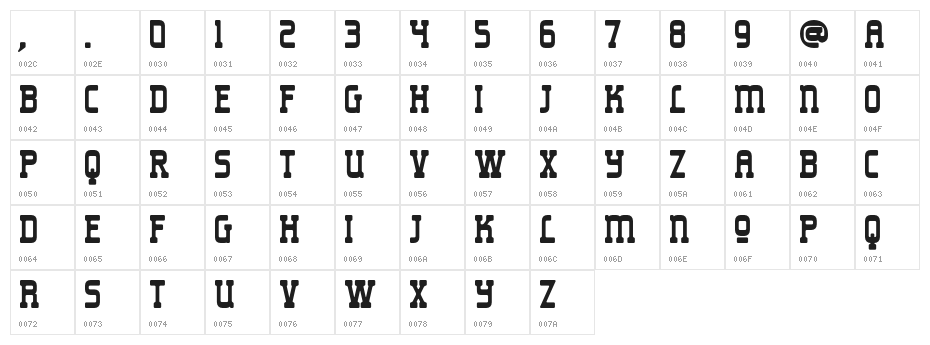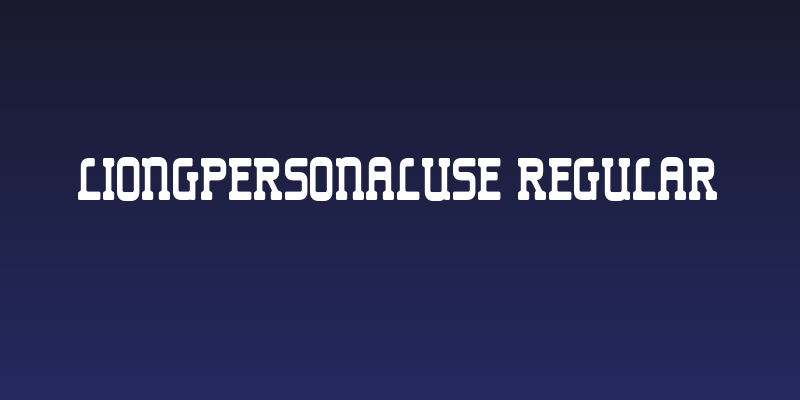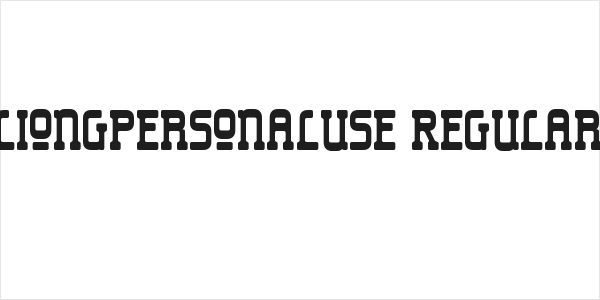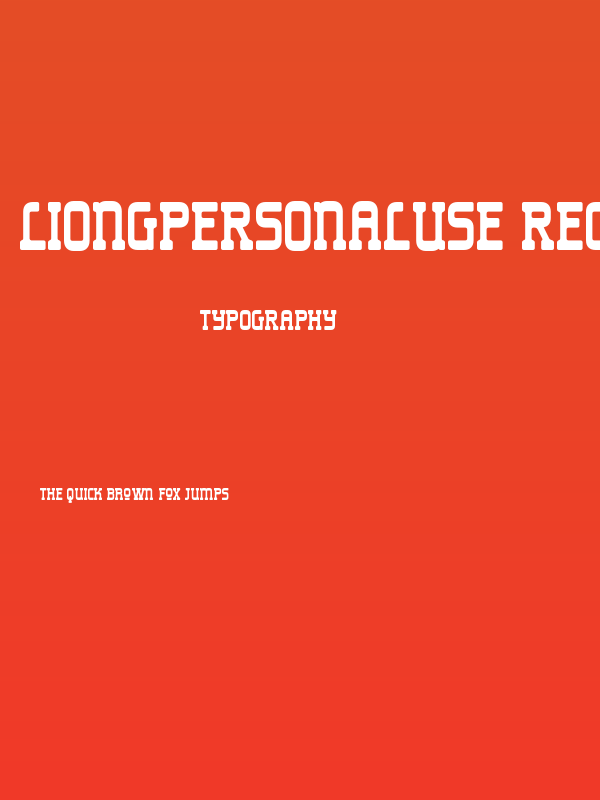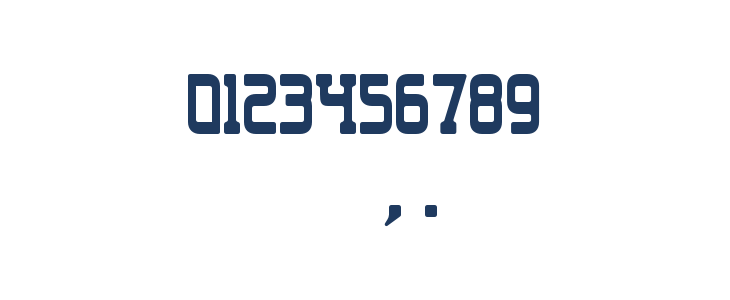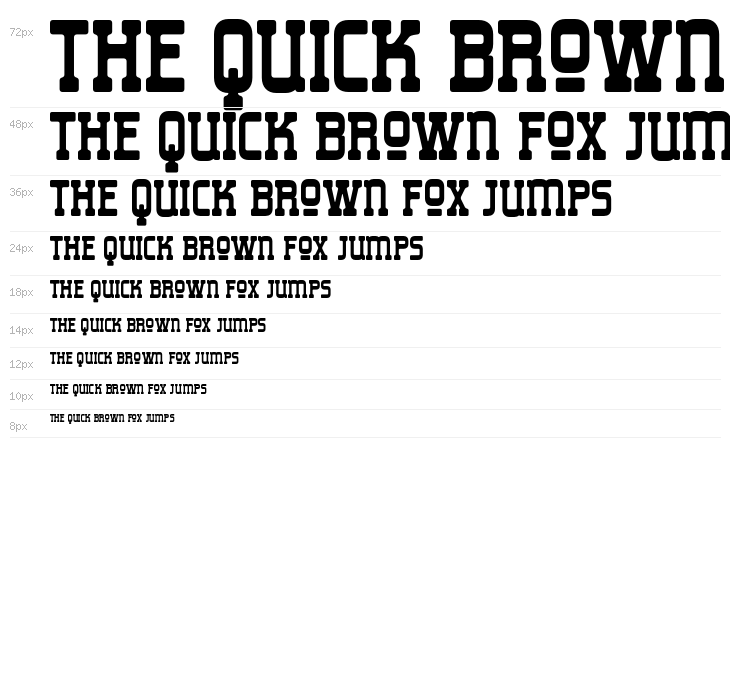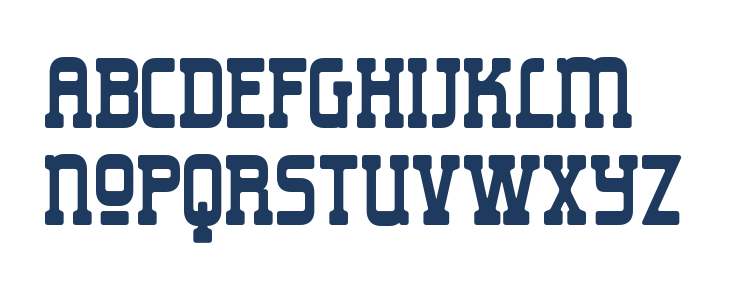
LiongPersonalUse-Regular Font
LiongPersonalUse-Regular Description
This font features a bold and robust design with a strong presence. The characters are uniformly thick, giving it a solid and impactful appearance. The edges are slightly rounded, adding a touch of softness to the otherwise strong geometric shapes. This font is highly legible, making it suitable for various applications where clarity and emphasis are needed. The consistent weight across all characters ensures a harmonious look, while the slight curvature at the corners provides a modern touch. The numerals and punctuation marks follow the same design principles, ensuring uniformity throughout.
| Proposed Projects | Ideal for headlines, posters, branding materials, and signage where a strong visual impact is desired. |